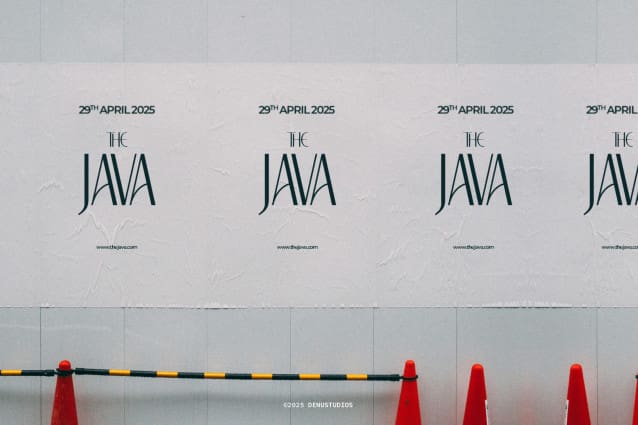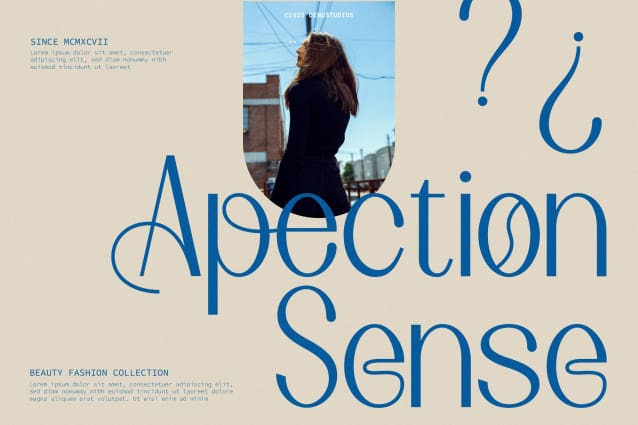
Brigebe Font
Brigebe Font | Stylish Modern Sans Serif, from Denustudios, suitable for any projects such as: logos, branding projects, homeware designs, product packaging, mugs, quotes, posters, shopping bags, t-shirts, book covers, name card, invitation cards, greeting cards, label, photography, watermark, special events, and all your other lovely projects that need a Stylish Modern Sans Serif taste.